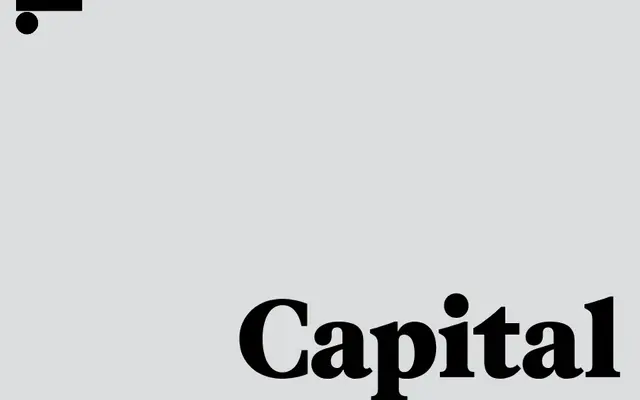
LL Capital
A single-weight titling serif by Pablo Desportes that layers a new take on ITC Grouch and the Caslon reappropriations of 1970s New York onto a screen-capable display face.
Drawing on ITC Grouch, Benguiat Caslon and Caslon No.224, the design balances extreme stroke contrast and diamond-shaped top serifs against the legibility demands of digital screens. An 18-degree italic was devised from scratch using a systematic slanting approach, in the absence of italic precedents among the 1970s display Caslons. Originally sketched for a film title sequence in 2022, it was refined over three years before its release in 2025.
A titling serif with extreme stroke contrast, diamond-shaped top serifs and an 18-degree italic slant, drawing directly from ITC Grouch and the Caslon reappropriations of 1970s New York. Its single weight and headline-first design place it firmly in the display category.